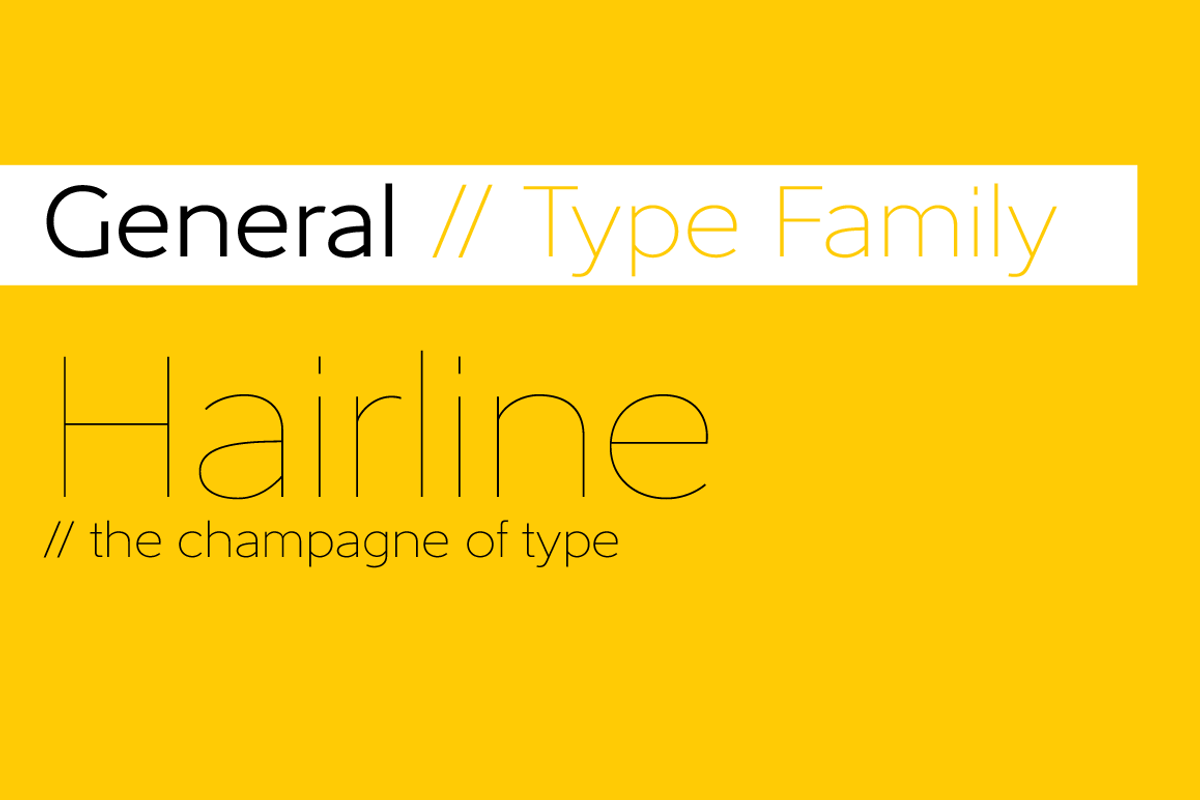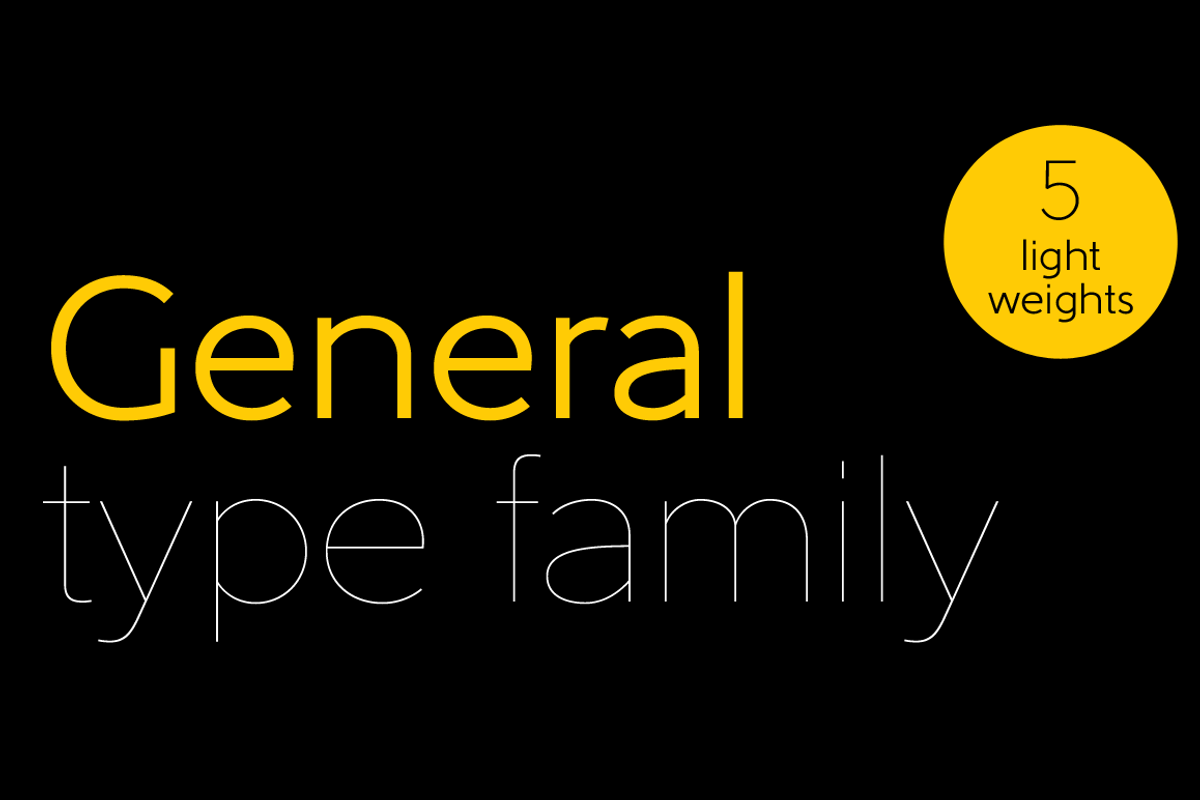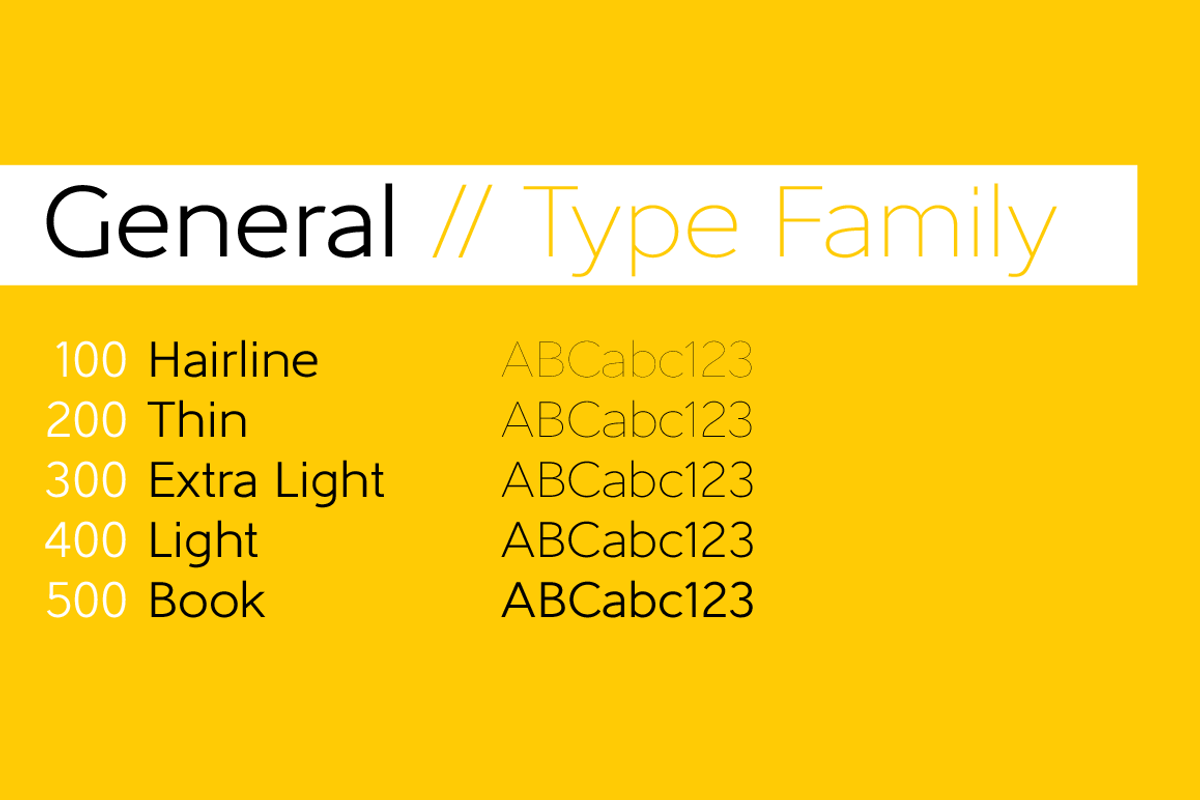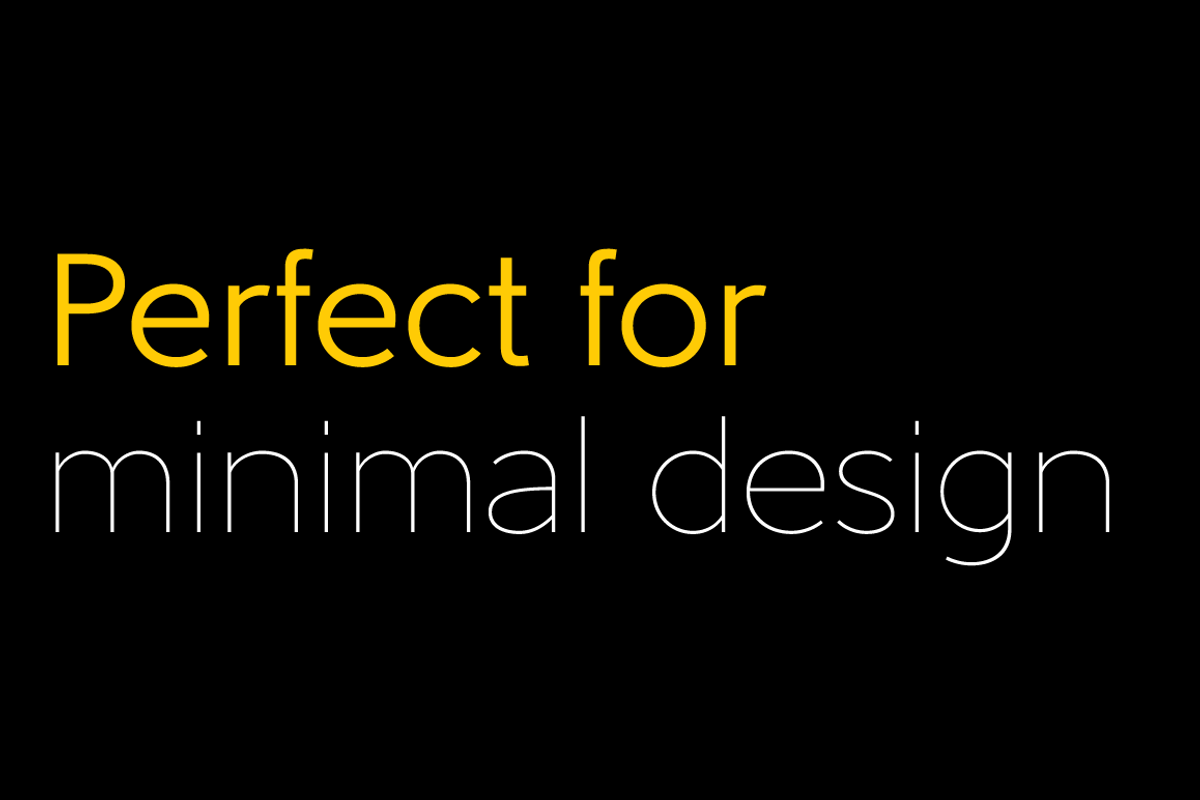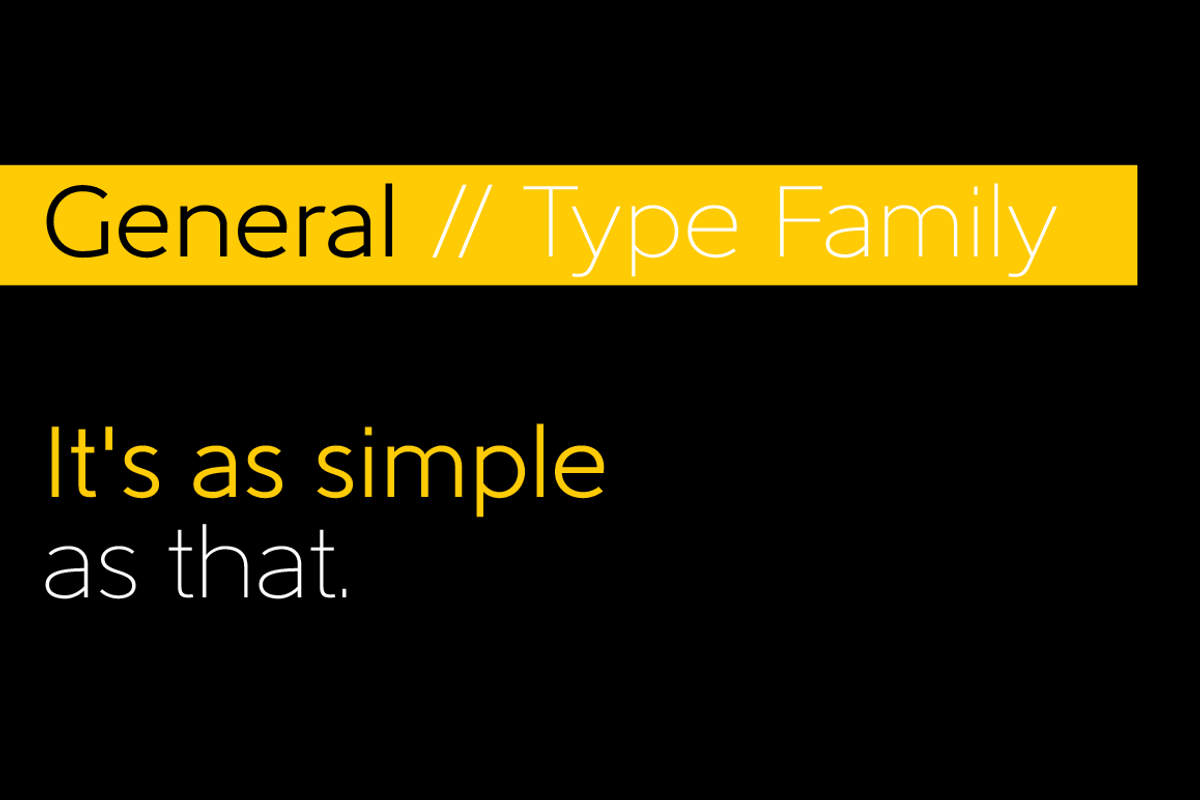
General Font Family
General Font Family by Juraj Chrastina is a font selected for branding, posters, packaging, typography.
- General 100 Hairline
- General 200 Thin
- General 300 Extra Light
- General 400 Light
- General 500 Book
General Font Family by Juraj Chrastina fits naturally into Branding, posters, packaging, typography.